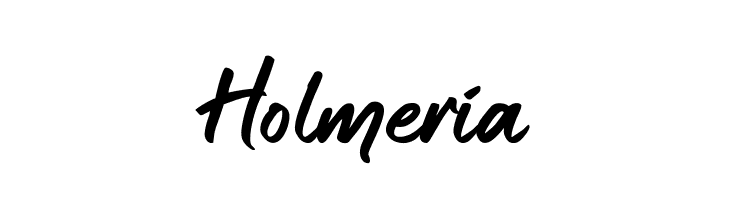
A modern outline font with geometric, double-line characters.
A dynamic, script-like font with fluid, interconnected letters and a personal touch.
A geometric, modern font with clean lines and a futuristic style.
A bold, geometric font with angular lines and a modern, structured appearance.
A geometric, outlined font with a modern and futuristic style.
A bold, geometric outline font with a modern and structured design.
A bold, angular italic font with a futuristic and edgy design.
A bold, angular font with a modern, industrial style.
A modern, angular italic font with a bold and dynamic style.
A bold, angular font with a modern, industrial feel.
A modern, outlined font with a dash pattern and geometric design.
A bold, playful script font with flowing, dynamic letterforms.
A bold, outlined geometric font with a modern and clean appearance.
A bold slab serif font with strong, block-like serifs and a cohesive design.
A bold, shadowed font with a strong, geometric design.
A bold, stencil-style font with geometric precision and industrial appeal.
A modern, dot-connected geometric font with a futuristic style.
A graceful and elegant script font with flowing, cursive strokes.
A modern, dotted line font with a futuristic and technical design.
A bold, dynamic script font with a shadow effect for added depth.
A fluid and elegant script font with moderate stroke contrast.
A dynamic and flowing script font with elegant curves and smooth connections.
A modern, geometric font with rounded edges and uniform stroke width.
A modern, double-line outline font with geometric shapes and clean lines.